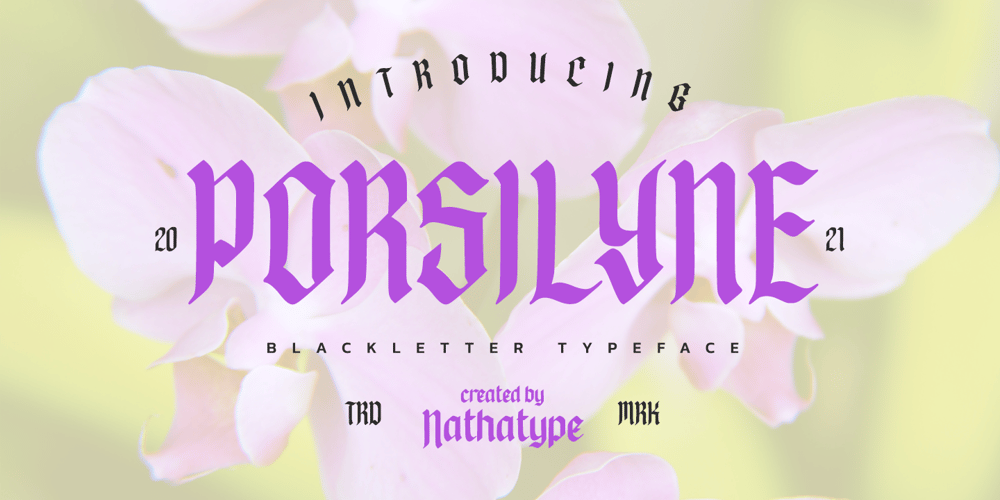
Porsilyne Font Family was designed by Donis Miftahudin and published by Nathatype. Porsilyne contains 1 styles and family package options. Looking for a font that will make your branding stand out? Do you sometimes have an appetite for a bit more wholesome typography? Looking for a fabulous, stylish, and adventure font? We’ve got what you want.Porsilyne – A Blackletter FontPorsilyne is a blackletter font. This font is inspired by ancient fonts, unique decorative, and various elements. The best choice to ensure a great font match for your designs and projects! Well suited to titles, poster designs, branding, quotes, and logos.Our font always includes Multilingual Support to make your branding reach a global audience. Features: PUA Encoded Numerals and Punctuation Thank you for downloading premium fonts from Natha Studio